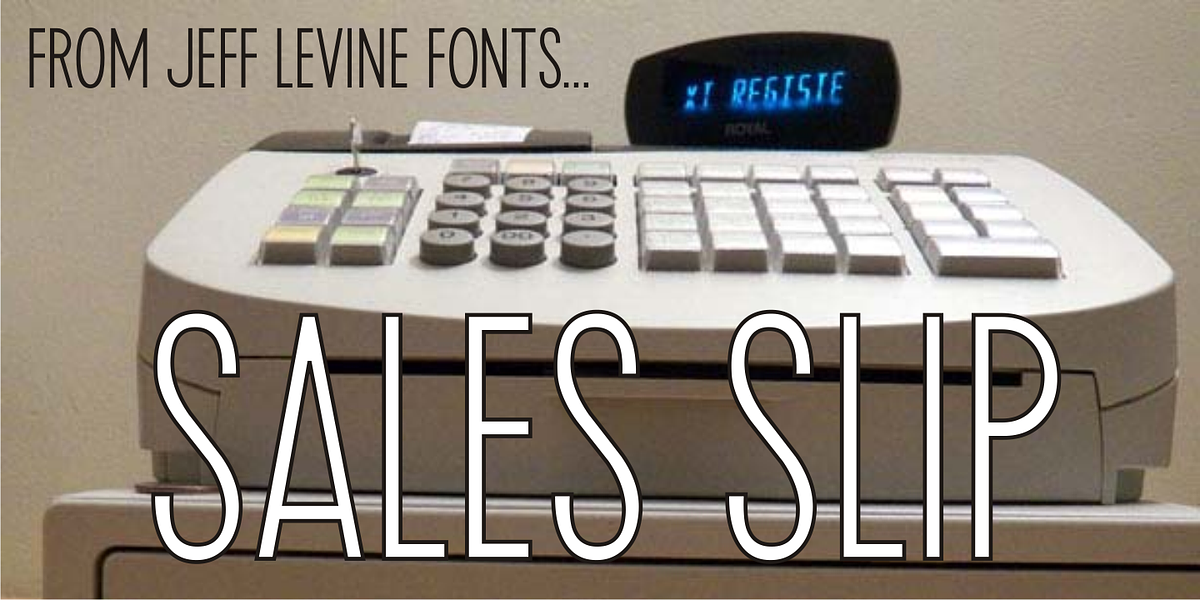
Sales Slip JNL
Sales Slip JNL is derived from the core lettering of Sales Book JNL, an outline font with a cast shadow; modeled from wood type examples found in an old printerís supply catalog.